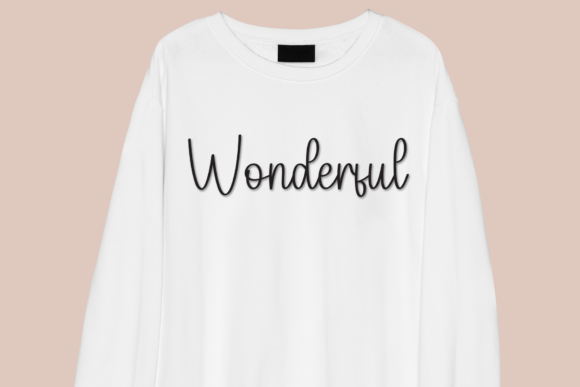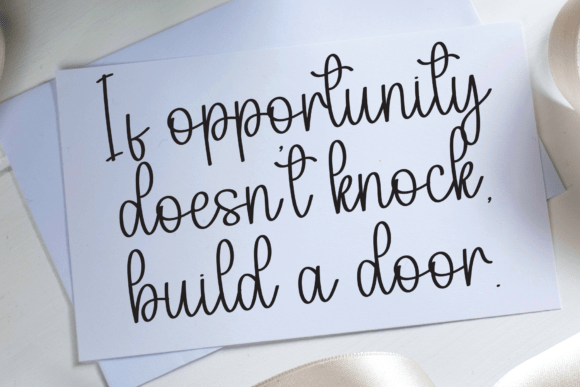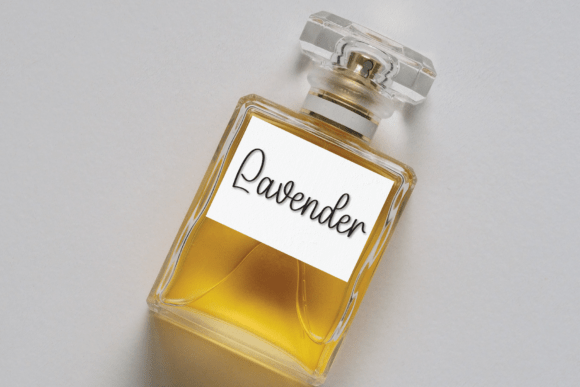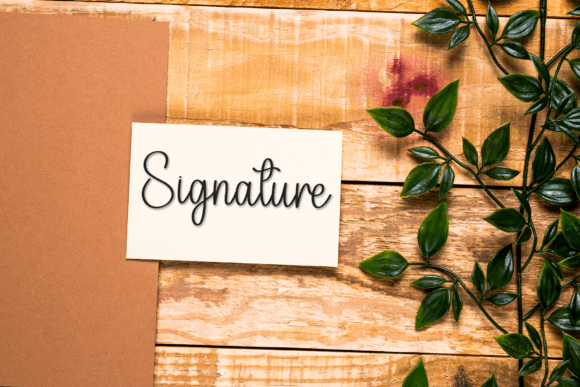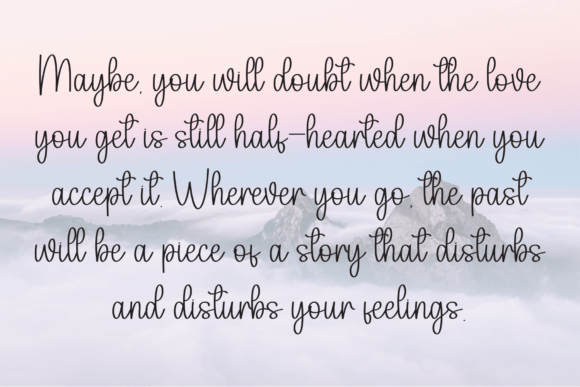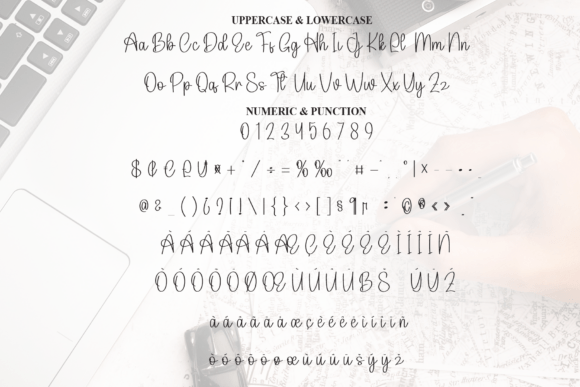
Introducing Autography Font: Elevate Your Designs with Elegance and Charm
Are you looking for a font that exudes freshness, elegance, and delicate charm? Look no further than Autography, a stylish handwritten script font that is perfect for a variety of design projects. With its flowing strokes and graceful curves, Autography is sure to evoke a sense of renewal and upliftment, making it ideal for invitations, branding, and seasonal designs.
The Beauty of Autography
Autography is a beautifully crafted font that is designed to add a soft, personal touch to any project. Its elegant and refined appearance makes it perfect for designers and crafters who want to create stunning visual content that stands out from the crowd. Whether you’re working on a wedding invitation, a brand identity, or a seasonal greeting card, Autography is the perfect choice.
Key Features of Autography
- Flowing Strokes: Autography’s flowing strokes give it a sense of movement and fluidity, making it perfect for creating elegant and refined designs.
- Graceful Curves: The font’s graceful curves add a touch of sophistication and charm, making it ideal for designs that require a personal touch.
- Fresh Elegance: Autography’s unique blend of elegance and freshness makes it perfect for designs that require a sense of renewal and upliftment.
- Delicate Charm: The font’s delicate charm makes it perfect for designs that require a soft, personal touch.
Uses for Autography
Autography is a versatile font that can be used for a variety of design projects, including:
- Invitations: Autography is perfect for wedding invitations, birthday invitations, and other special occasion invitations.
- Branding: The font’s elegant and refined appearance makes it perfect for brand identities, logos, and marketing materials.
- Seasonal Designs: Autography’s fresh and uplifting feel makes it perfect for seasonal designs, such as Christmas cards, Easter eggs, and summer-themed designs.
- Digital Designs: The font is also perfect for digital designs, such as social media graphics, blog posts, and website headers.
Why Choose Autography?
There are many reasons why designers and crafters choose Autography for their design projects. Here are a few:
- Unique and Elegant: Autography is a unique and elegant font that will make your designs stand out from the crowd.
- Versatile: The font is versatile and can be used for a variety of design projects, from invitations to branding and seasonal designs.
- Easy to Read: Autography is easy to read, making it perfect for designs that require a clear and concise message.
- High-Quality: The font is of high-quality, making it perfect for professional designs and projects.
Tips for Using Autography
Here are a few tips for using Autography in your design projects:
- Pair with Other Fonts: Autography pairs well with other fonts, such as sans-serif fonts and serif fonts.
- Use for Headings: The font is perfect for headings and titles, making it ideal for designs that require a clear and concise message.
- Experiment with Colors: Autography looks great in a variety of colors, from bold and bright to soft and pastel.
- Use for Digital Designs: The font is perfect for digital designs, such as social media graphics and website headers.
Autography is a stylish handwritten script font that radiates fresh elegance and delicate charm. With its flowing strokes and graceful curves, it’s perfect for designs that require a sense of renewal and upliftment. Whether you’re a designer or crafter, Autography is a great choice for a variety of design projects, from invitations to branding and seasonal designs. So why not give Autography a try and see how it can elevate your designs?